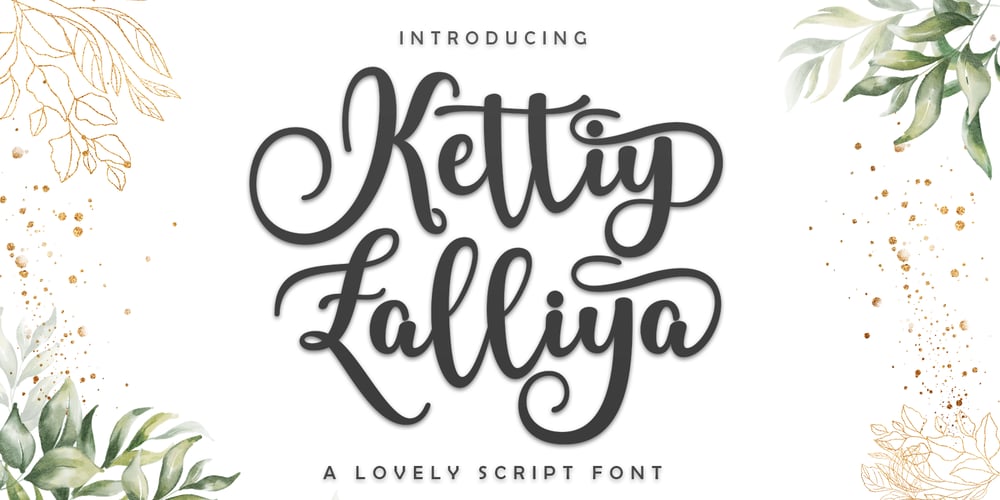
Kettiy Zalliya Script Font Family was designed by Rahmad Fajri and published by Supotype Studio. Kettiy Zalliya Script contains 1 styles and family package options. Kettiy Zalliya Script with beautiful handwriting style. Equipped with a flying machine. Kettiy Zalliya Script is perfect for branding projects, home appliance design, product packaging, use in business cards, invitation cards, etc. Just as a stylish text overlay onto a wallpaper or anything else that needs a touch of elegance.To enable the OpenType Stylistic alternative, you need a program that supports OpenType features such as Adobe Illustrator CS, Adobe Indesign & CorelDraw X6-X7, Microsoft Word 2010 or later.There are additional ways to swash, using the Character Map (Windows), Nexus Font (Windows), Font Book (Mac) or a software program such as PopChar (for Windows and Mac).How to access all alternative characters, using Windows Character Map with Photoshop: https://www.youtube.com/watch?v=Go9vacoYmBwHow to access all alternative characters using Adobe Illustrator:http://youtu.be/iptSFA7feQ0How to use the font style set in Microsoft Word 2010 or later versions:https://youtu.be/x1A_ilsBsGsThanks for checking! I really hope you enjoy it.Thank you.